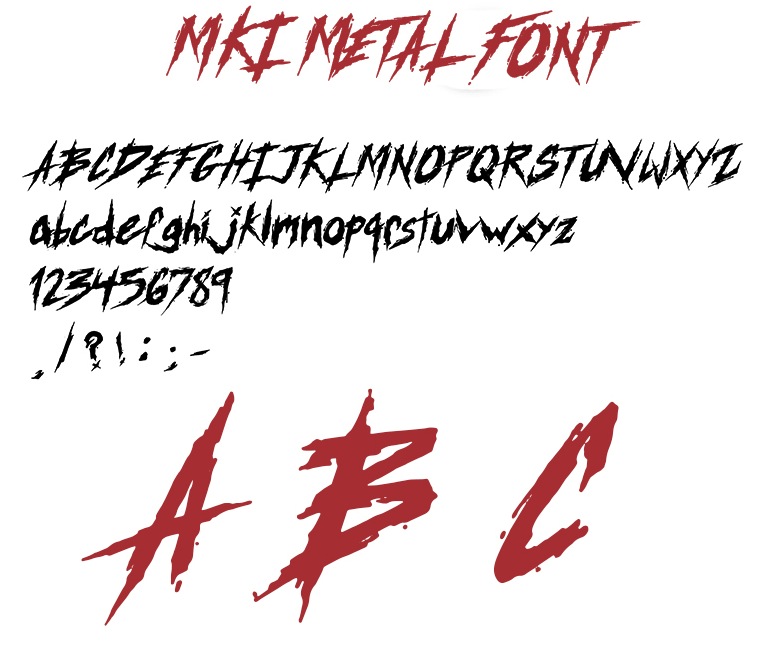
You Can Use The Death Metal To Create Interesting Designs, Covers, Shop And Store Name And Logos.
Mki Fonts Font Death Metal Brush Font Dark Gloomy Gangly Long.
00 april 3, 2007, initial release deathmetal this font was created using fontcreator 5. You can see the sharp and dry branches in this death metal font, the best use of which in flyer halloween and scary themes. Death metal font download free free.
Heavy Metal Fonts Are Good For Rock Music Posters.
Included 158 font in one pack! So it is suitable for death metal music, death metal logo design, clothing, logos, music covers, posters, or other designs with the theme deathmetal. 00 death metal version 1.